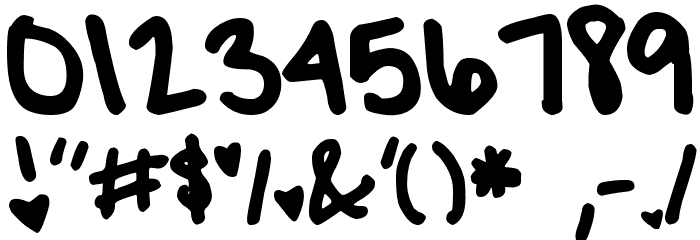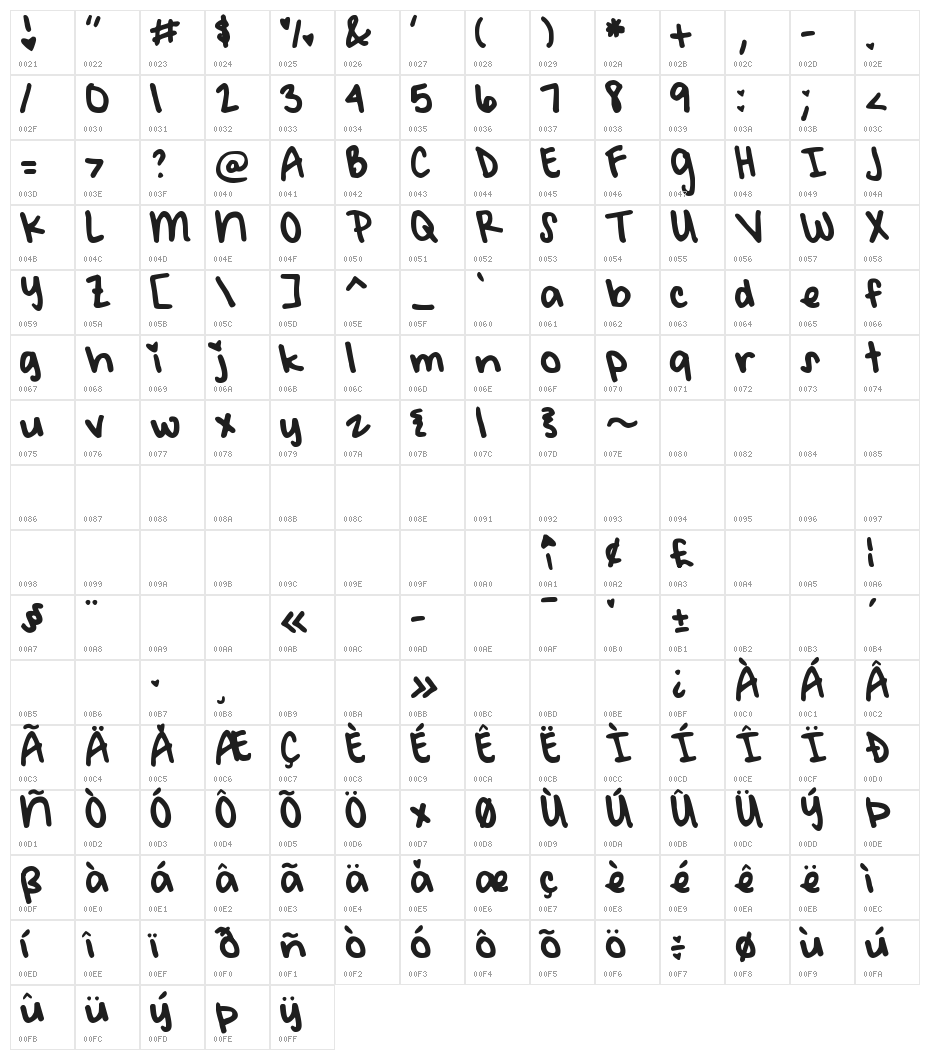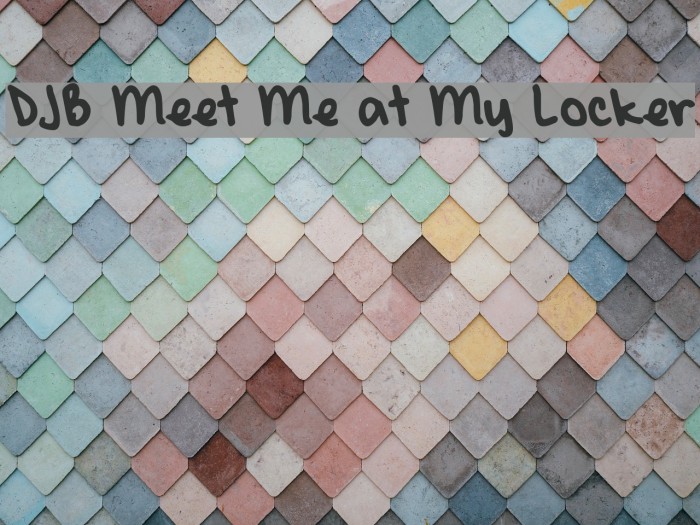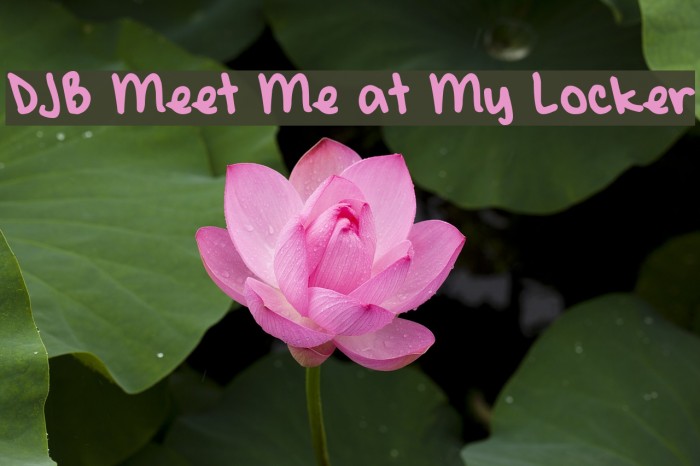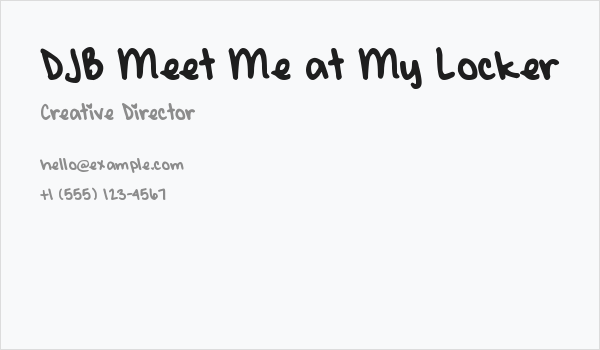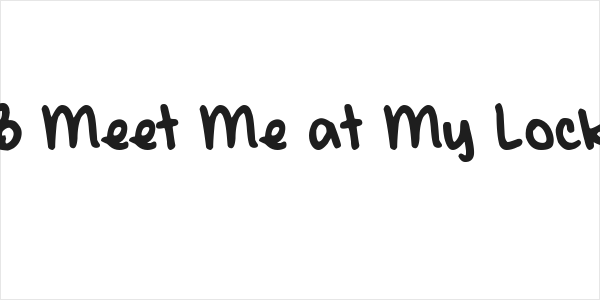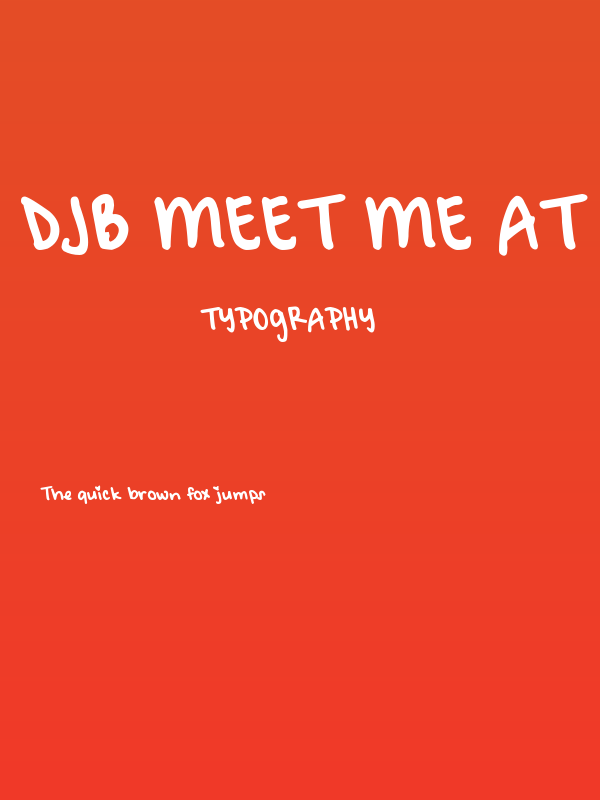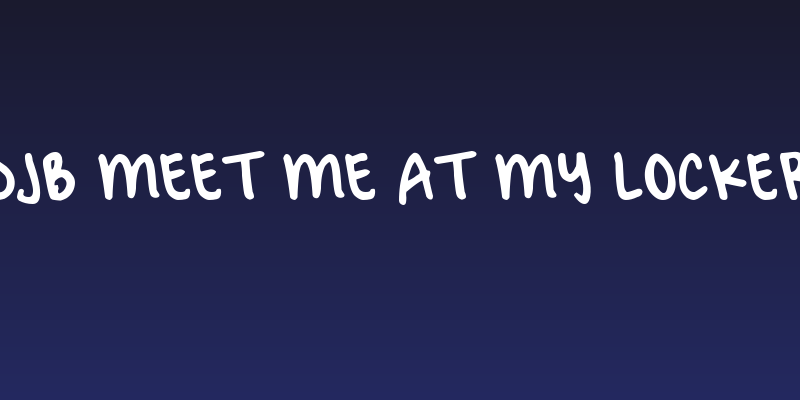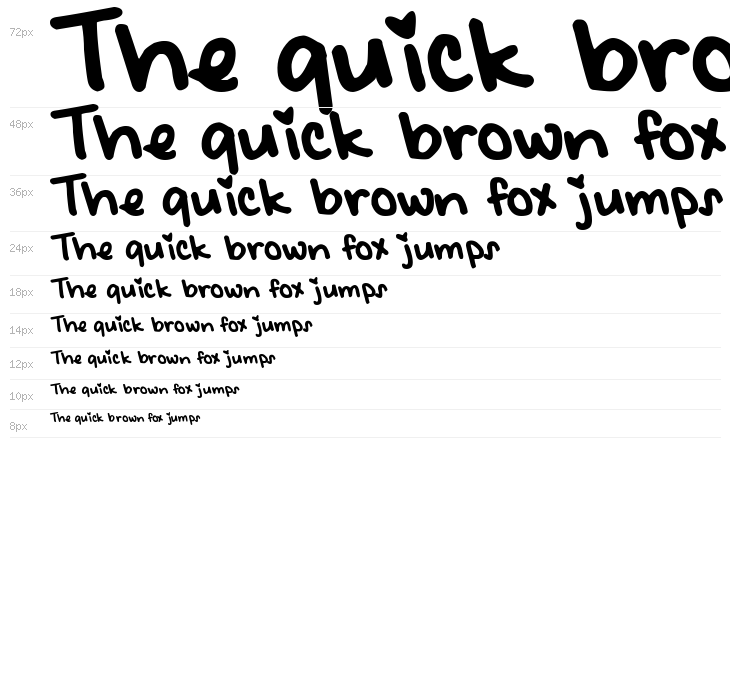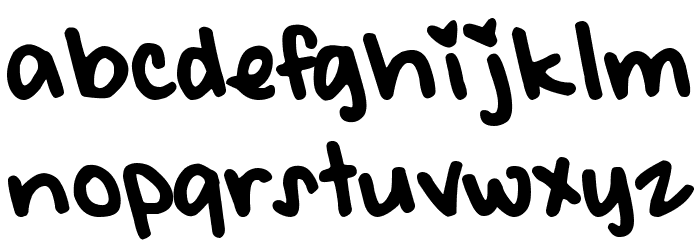
DJB Meet Me at My Locker Font
DJB Meet Me at My Locker Description
This playful and casual handwritten font features a bold and rounded style, giving it a friendly and approachable appearance. The letters are slightly irregular, adding a personal touch reminiscent of doodles or notes passed in class. The uppercase and lowercase letters maintain a consistent style, with a slight tilt and varying stroke thickness, enhancing its informal charm. The numbers and special characters follow the same whimsical design, making it versatile for creative projects. The font's overall look is youthful and energetic, perfect for capturing attention in a fun and engaging way.
| Proposed Projects | Ideal for school projects, children's books, greeting cards, and playful branding. |